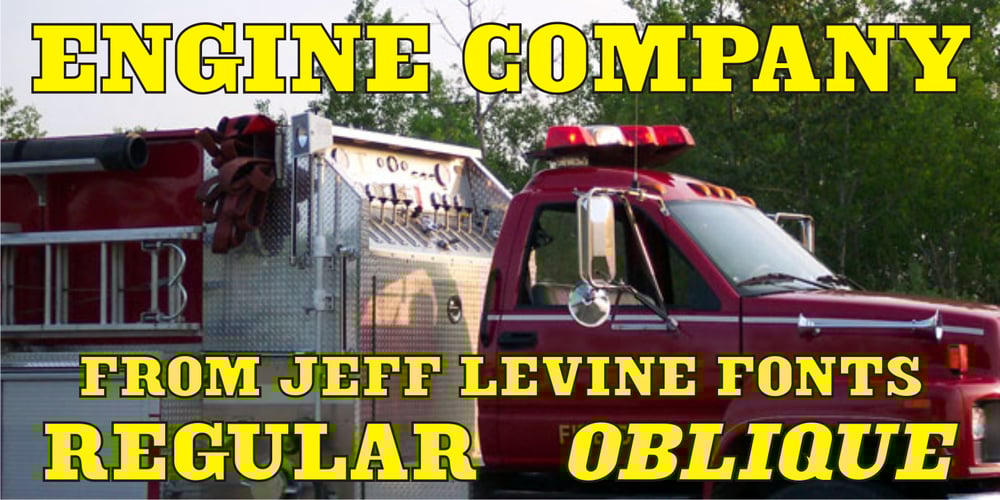
Engine Company JNL Font Family was designed by Jeff Levine and published by Jeff Levine. Engine Company JNL contains 2 styles and family package options. Engine Company JNL is a slab serif font based on a set of wood type. The design emits an image of strength and purpose, and fits well into any project where a word or phrase must be conveyed forcefully without seeming overly imposing.